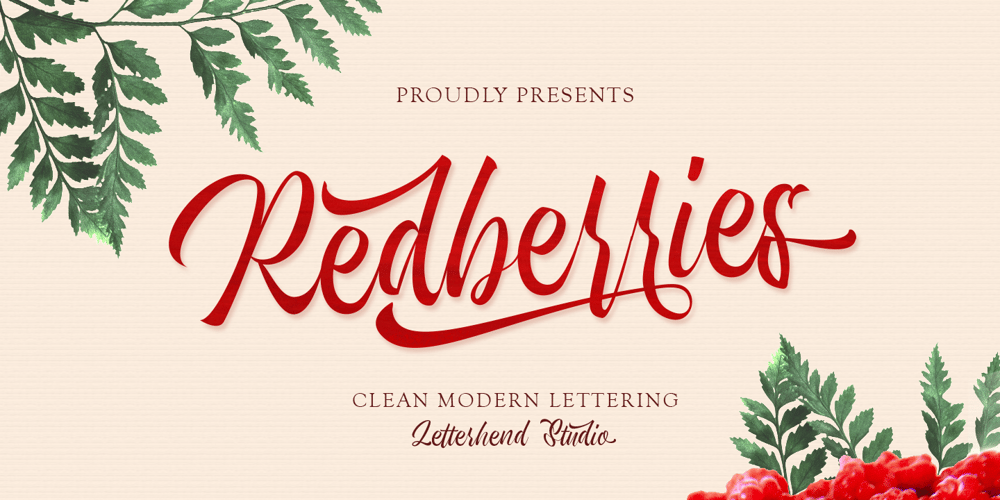
Redberries
Redberries font
Redberries Font Family was designed by Hendry Juanda and published by Letterhend. Redberries contains 1 styles and family package options. Introducing, Redberries Script. A beautiful and unique modern calligraphy script typeface. This type of font perfectly made to be applied especially in logo, and the other various formal forms such as invitations, labels, logos, magazines, books, greeting / wedding cards, packaging, fashion, make up, stationery, novels, labels or any type of advertising purpose.Features : uppercase & lowercase numbers and punctuation multilingual swashes and ligatures alternates PUA encoded We highly recommend using a program that supports OpenType features and Glyphs panels like many of Adobe apps and Corel Draw, so you can see and access all Glyph variations. How to access opentype feature : letterhend.com/tutorials/using-opentype-feature-in-any-software/Email us to letterhend@gmail.com if you need something! Happy Designing!